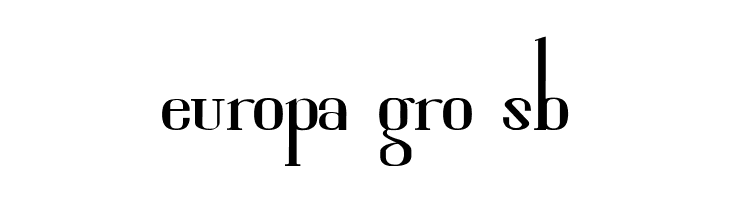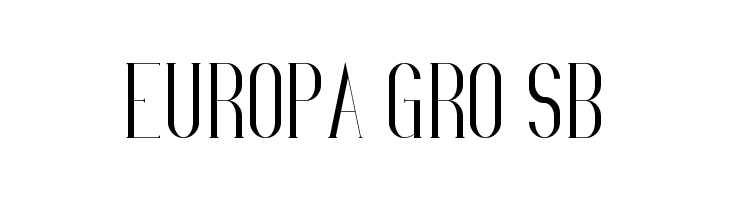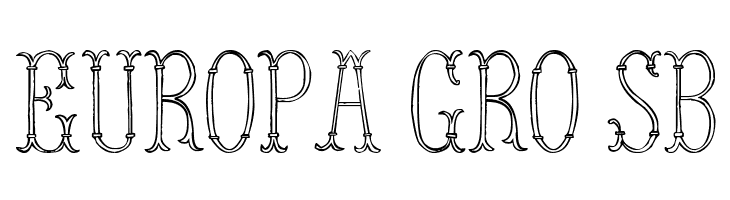
• Lovestrong
An elegant script font with flowing, ornate cursive letters and intricate swashes.
• GreekHouseSymbolized
A bold, double-outline font inspired by traditional Greek lettering, ideal for decorative and impactful designs.
• West Cousin
An elegant and decorative script font with flowing cursive letters and intricate flourishes.
• Inkland
An elegant script font with flowing cursive letters and intricate swashes.
• Schoolkid
An elegant, cursive font with intricate flourishes and a classic calligraphic style.
• Houstander Demo
A bold, flowing script font with elegant, interconnected characters.
• Houstander Allcaps Demo
A bold, expressive script font with fluid, interconnected characters.
• High So Serious
A tall, elegant font with a modern yet classic appeal.
• Irina
A sophisticated, high-contrast font with elongated, narrow letterforms.
• Tower of London
An ornate and decorative font with vintage flair and intricate serifs.